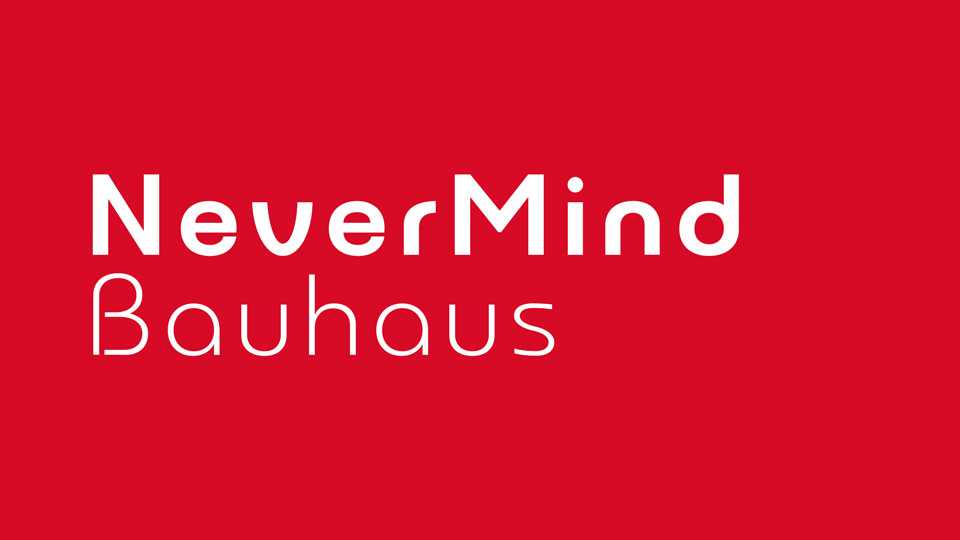
Download Nevermind Bauhaus font, a versatile sans serif typeface that seamlessly merges Bauhaus traditions with contemporary edge. Modern and timeless, it can be used for all types of communication.
Designer: XMind Ltd.